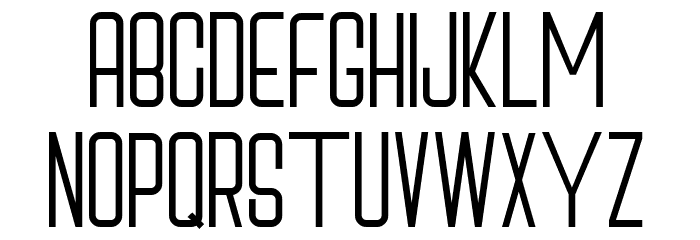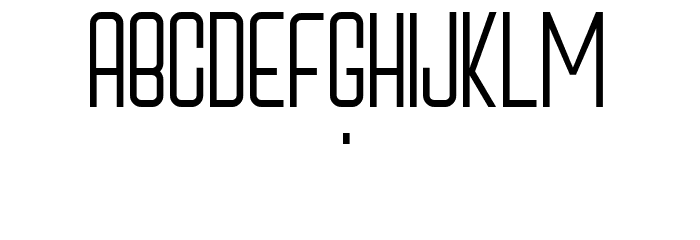
Cox's Bazar Font
This font features a modern, geometric design with tall, narrow letters that emphasize verticality. The characters are constructed with consistent stroke widths, giving it a clean and uniform appearance. The uppercase letters are particularly elongated, adding a sense of elegance and sophistication. The font's minimalistic style is achieved through its lack of serifs and decorative elements, making it suitable for contemporary design projects. Its structured form and precise lines convey a sense of order and clarity, ideal for making bold statements in design.
A modern, geometric sans-serif font with tall, narrow letters and consistent stroke widths.
- Font: Cox's Bazar
- Proposed Projects: Ideal for branding, editorial design, posters, and digital interfaces where a modern and clean aesthetic is desired.